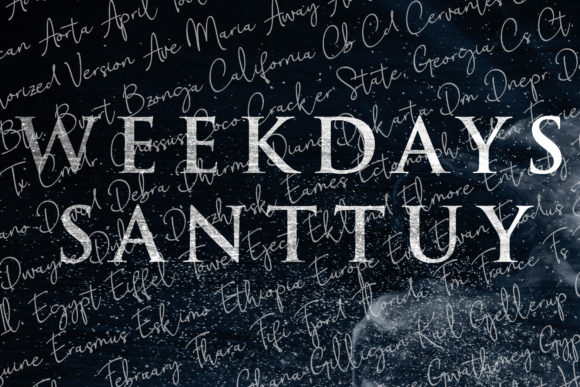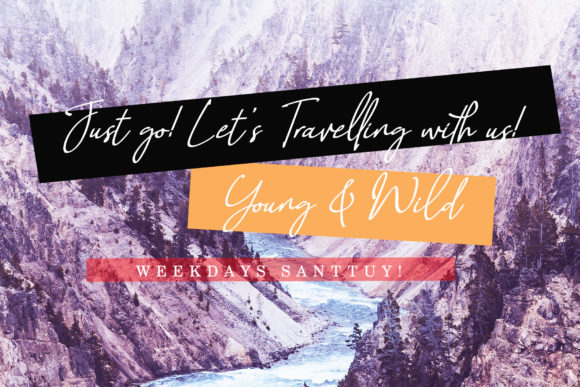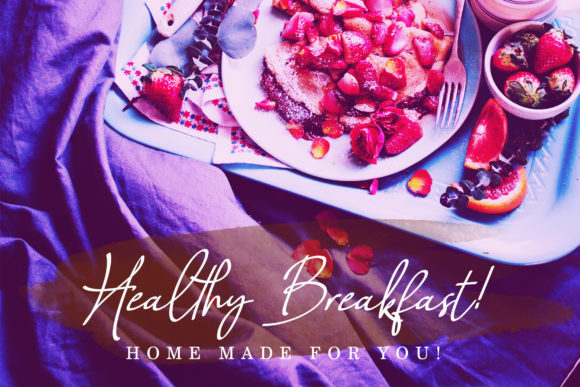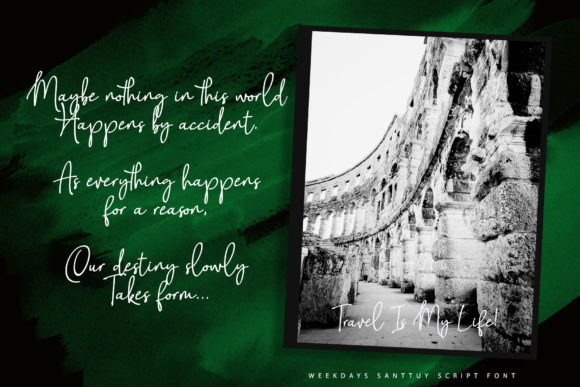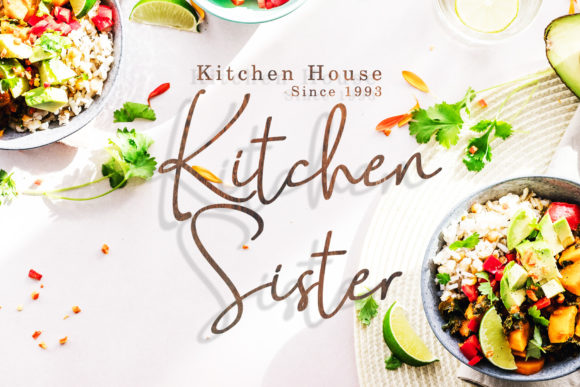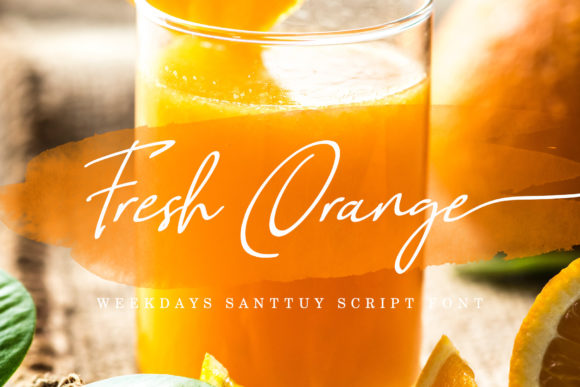
Weekdays Santtuy Font
About Weekdays Santtuy Font
Weekdays Santtuy is a friendly and fun script with extraordinary style. Use it to turn any design project into a true standout!